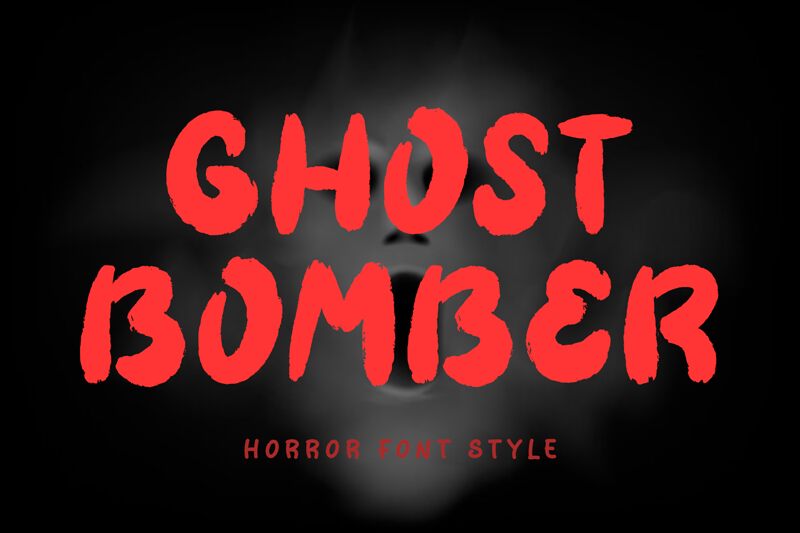
Ghost Bomber font by Yoga Letter is a free font that seeks to destroy the primary insight of a design instantaneously. Comparable to how a horror movie character can rattle watchers with their physical appearance alone, this font does the same with its letters. Its rugged and distressed display brings a dynamic and expressive effect that is both intense and haunting, a powerful choice for screen use and printed projects.
Ghost Bomber fonts eagerly await Halloween with their countless tricks and treats, and their outstanding presentation lines across movie posters, ticket designs, stationery projects, typography artwork, vinyl covers, apparel items like t-shirts and hoodies, and designs that mix art and fun including board game boxes, branding designs, online games themes, and many other options.